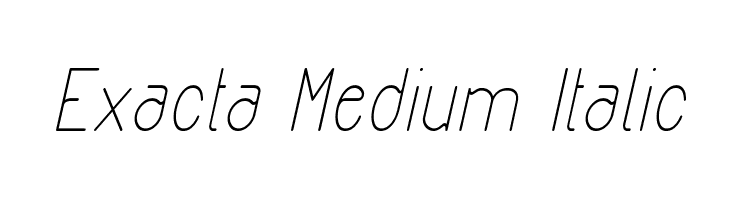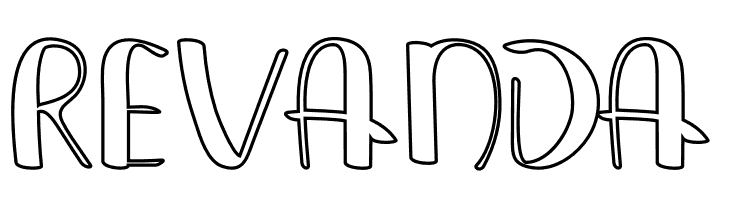
A sleek, modern italic font with consistent stroke width and elegant design.
A playful and whimsical font with rounded and angular elements, perfect for creative projects.
A bold, textured font with a vintage, distressed style.
A bold, high-contrast font with geometric and elegant elements.
Bold, blocky font with a modern, angular design.
A dynamic, brush-style script font with bold, slanted strokes.
A bold, geometric font with a three-dimensional, retro-inspired design.
A playful, handwritten font with a whimsical and casual style.
A bold, italicized font with a futuristic gradient effect and striped pattern.
A bold, halftone font with a futuristic, digital aesthetic.